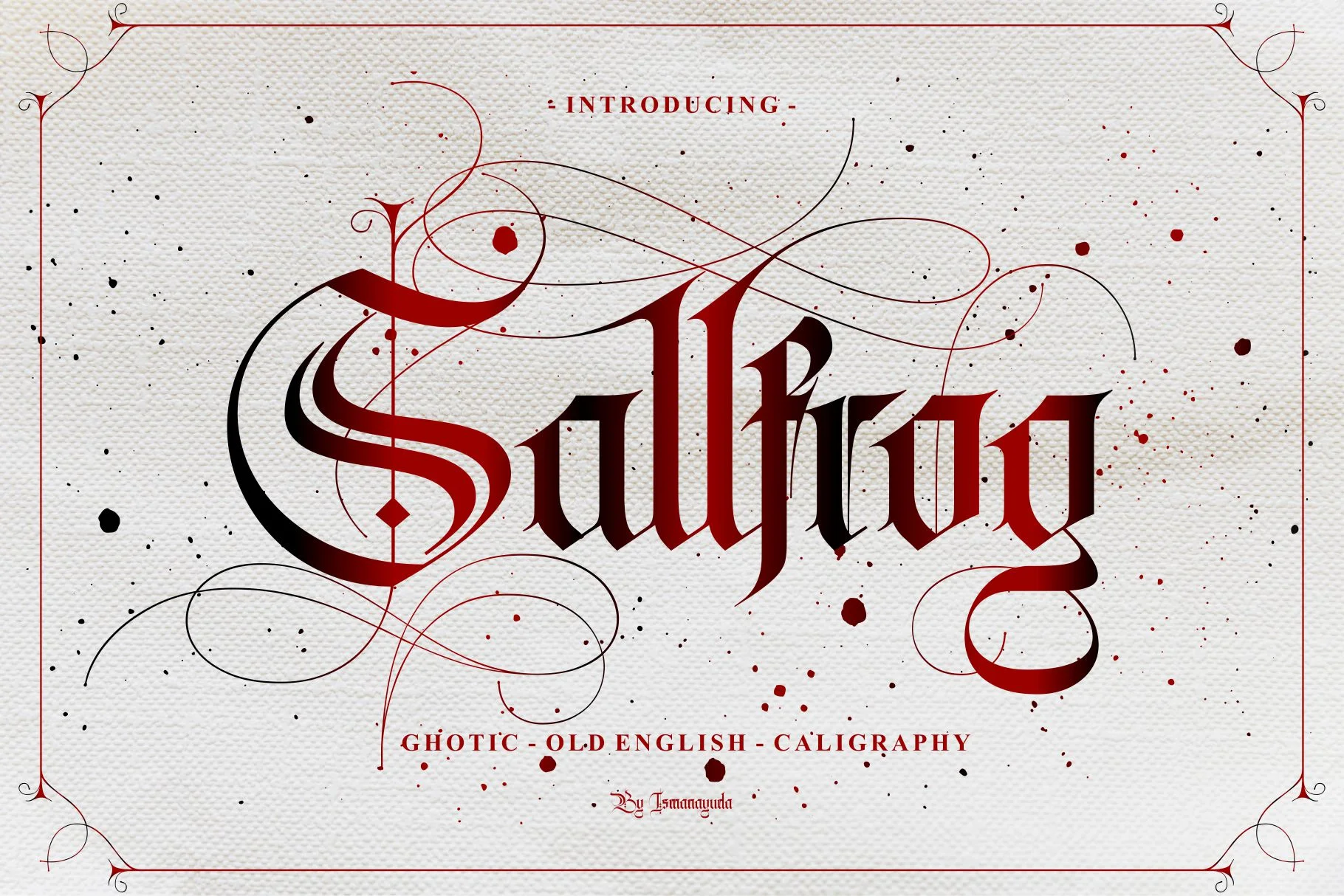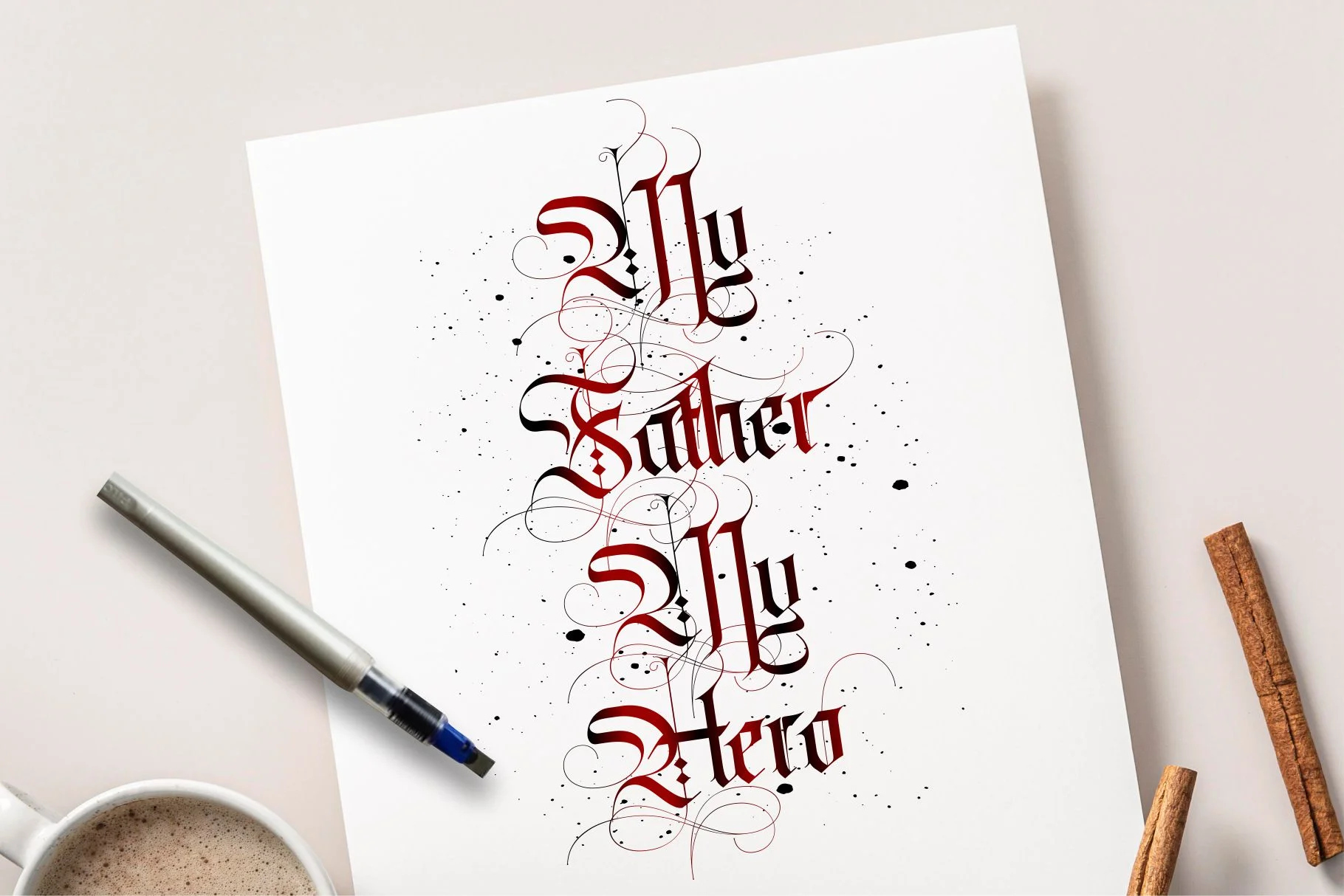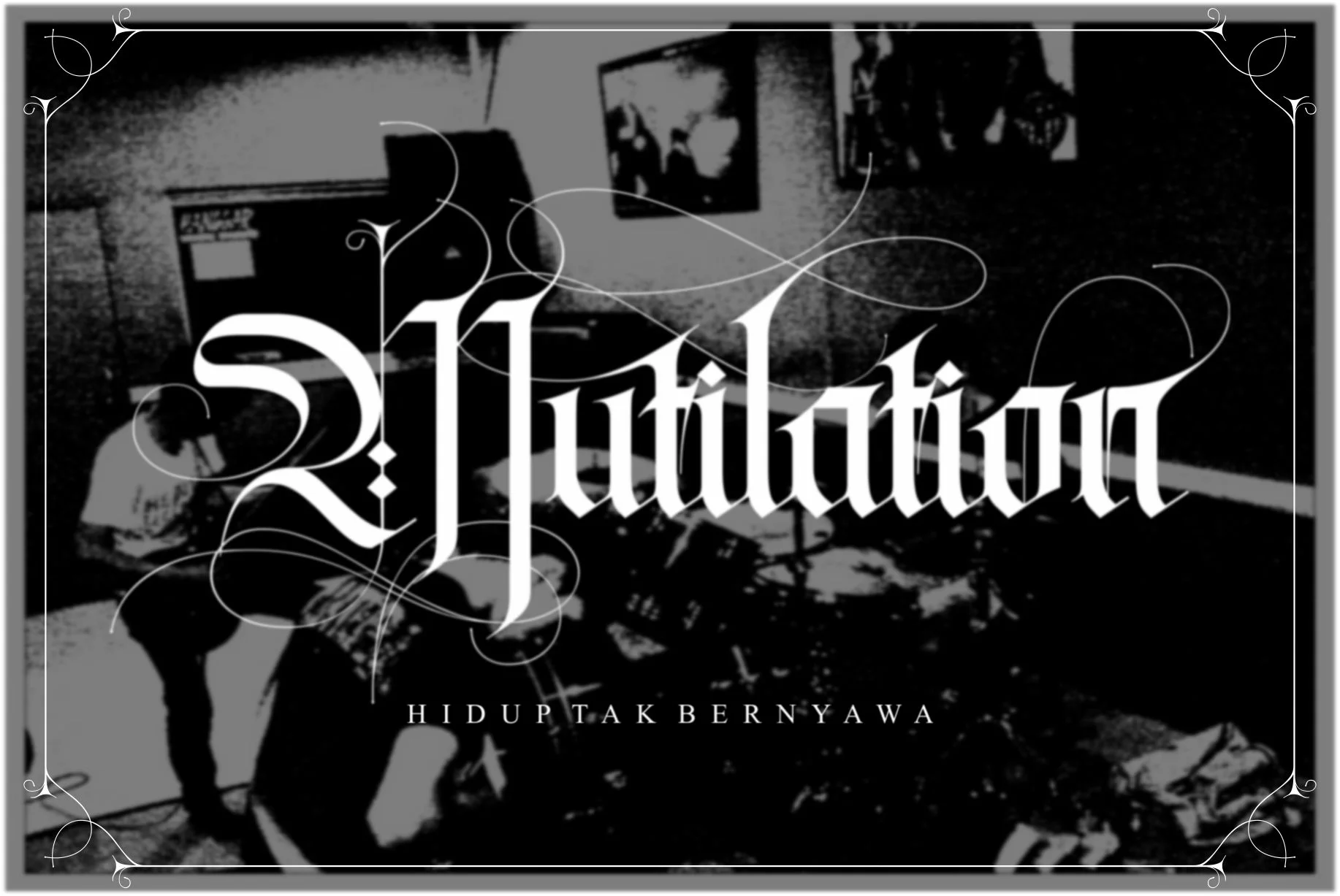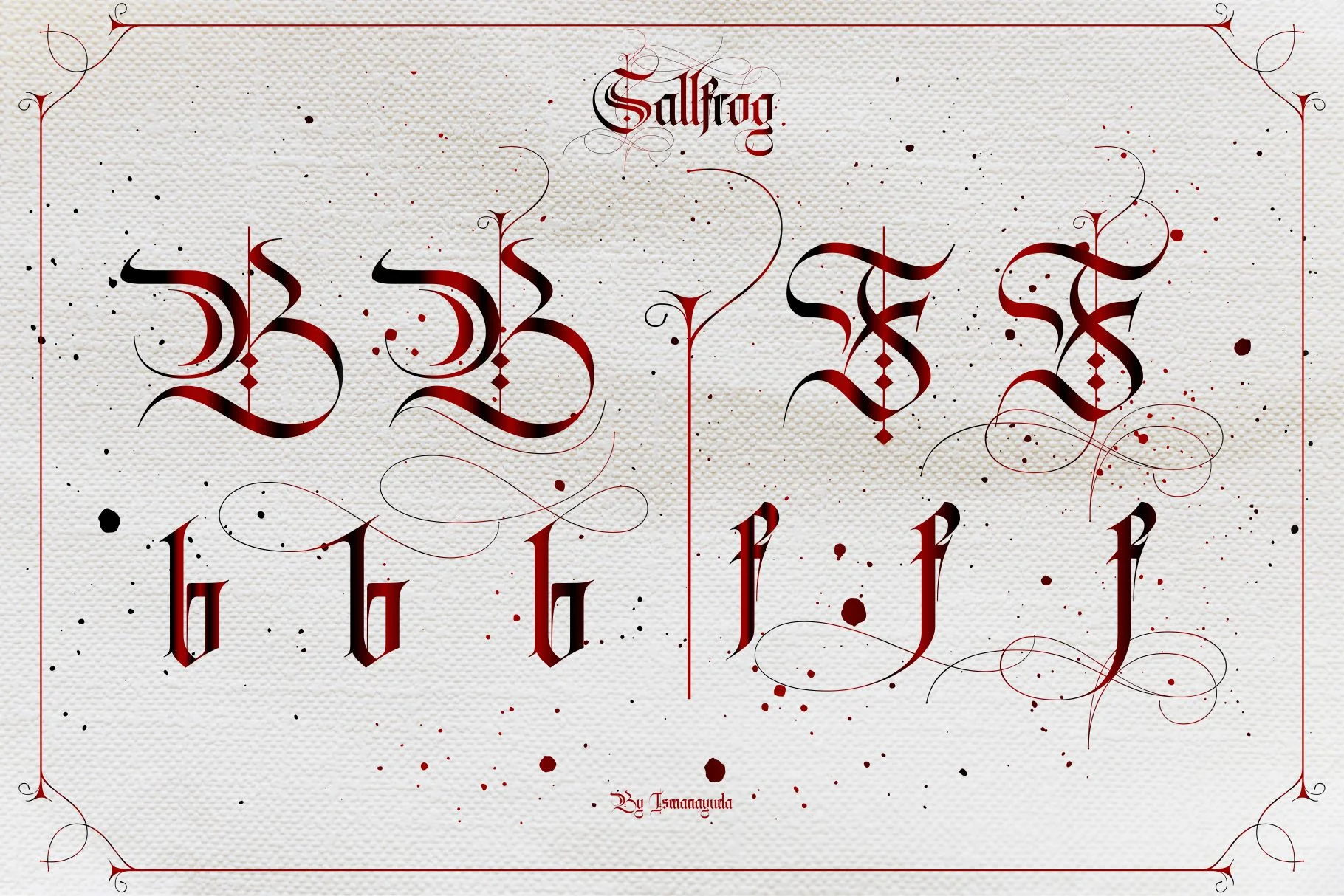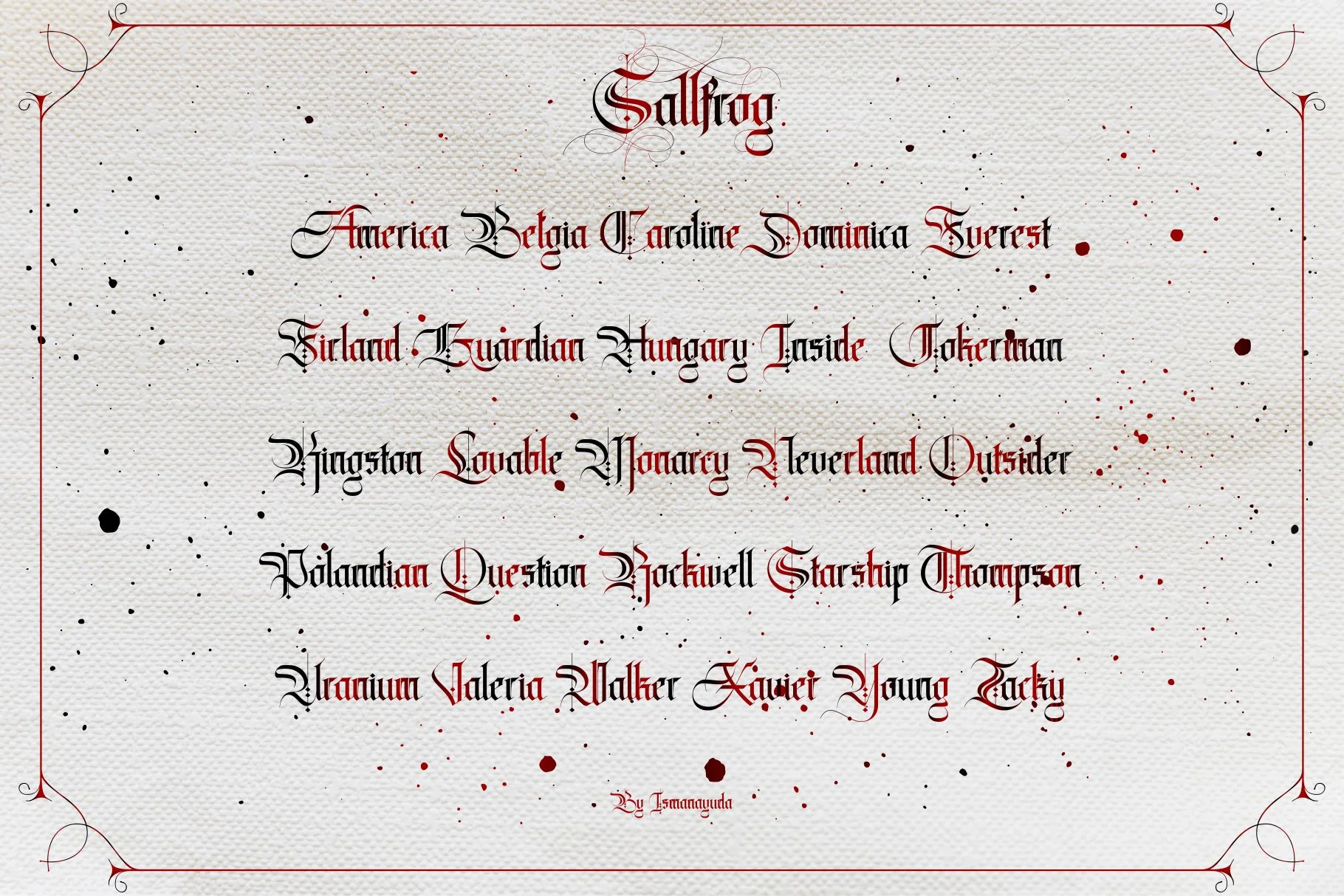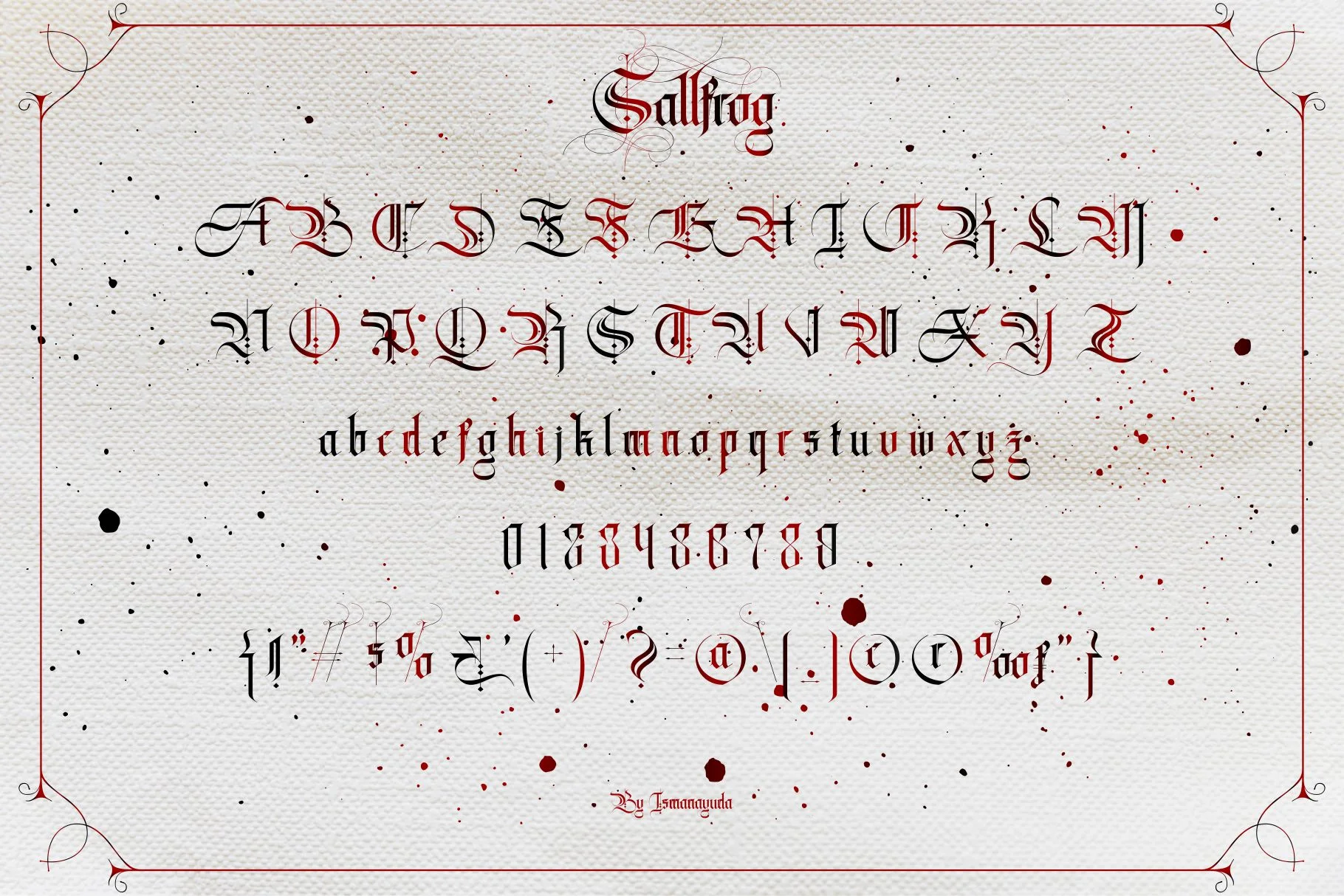
Salfrog
Sallfrog is described by its creator as a "masterpiece" that combines multiple traditional styles, including Gothic, Old English, and Calligraphy. It is characterized by its bold, thick strokes and moderate contrast, giving it a slightly compressed yet highly
A standout feature of this font is its extensive use of ornate swashes and calligraphic flourishes, which provide an aggressive yet elegant aesthetic. It is PUA encoded, ensuring that its wide variety of special characters and alternative glyphs are easily accessible across different design software. The font's dramatic style makes it a popular choice for tattoo branding, metal band logos, and high-impact vintage-themed designs.